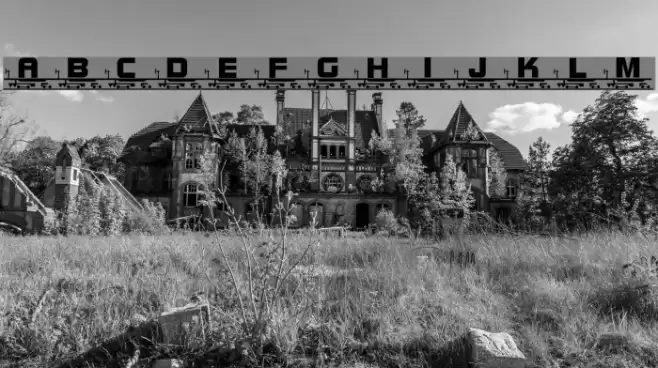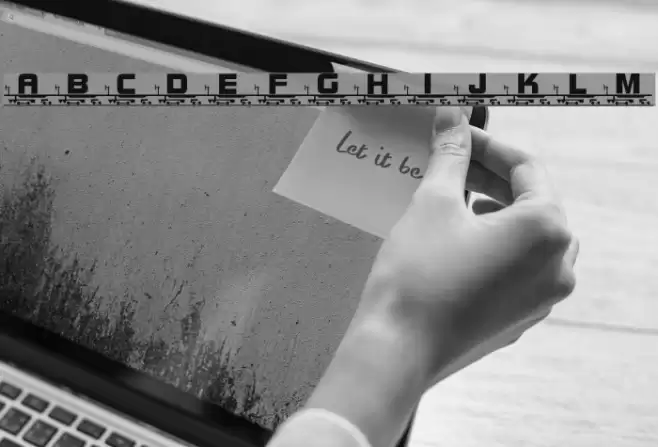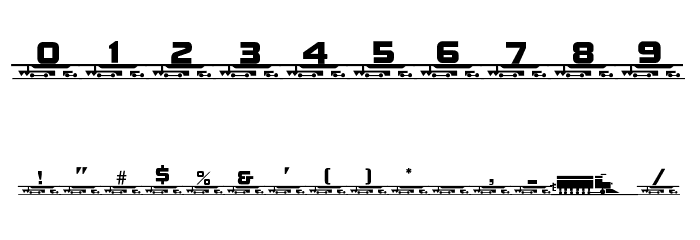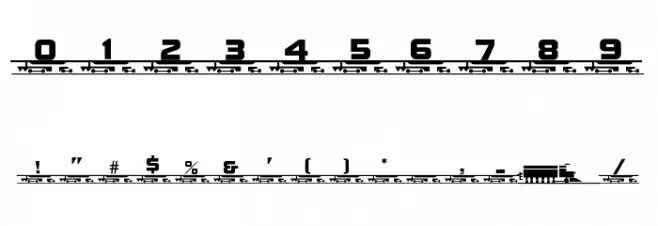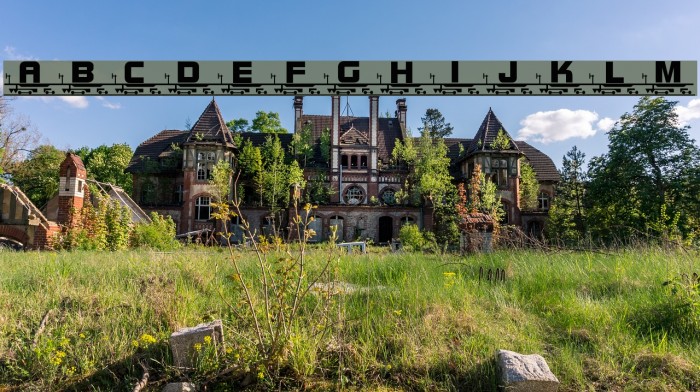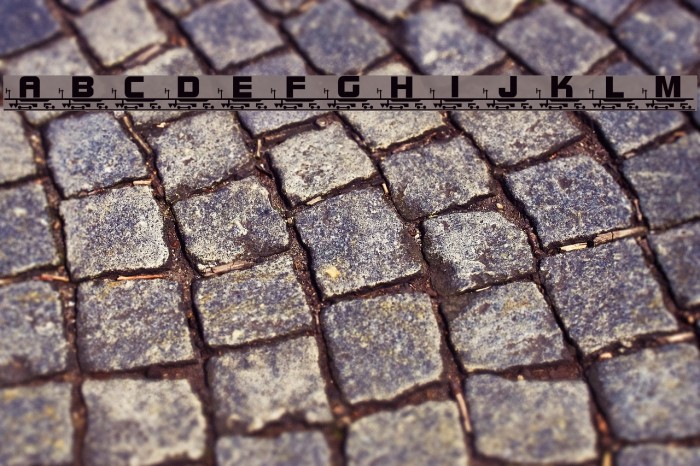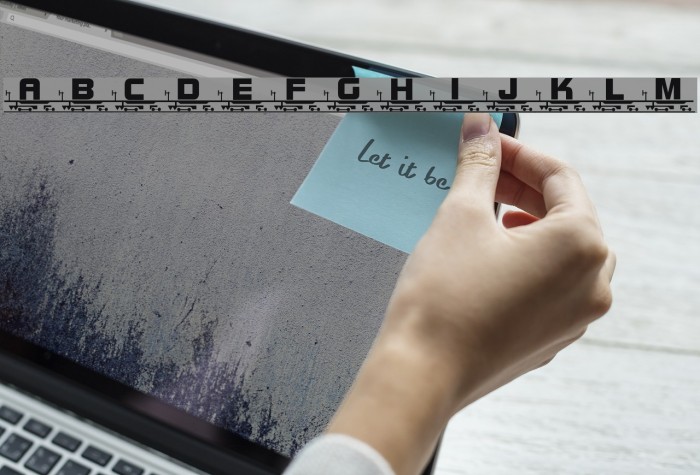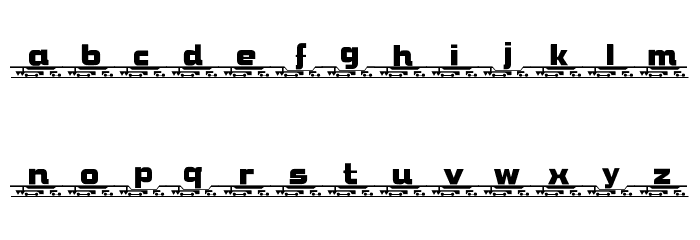
TQF_WordTrain Font
TQF_WordTrain Description
This font features a unique and playful design, incorporating elements that resemble train tracks beneath each character. The uppercase and lowercase letters are bold and geometric, with a modern and industrial feel. The numbers and special characters maintain this theme, providing a cohesive look across all glyphs. The font's distinct style makes it stand out, with each character appearing to be supported by a miniature railway track, adding a whimsical touch to its overall appearance.
A bold, geometric font with a playful train track motif from Images & Symbols fonts.
- Proposed Projects: Ideal for children's books, transportation-themed posters, playful branding, and educational materials.
- Overall Style: Modern, Decorative